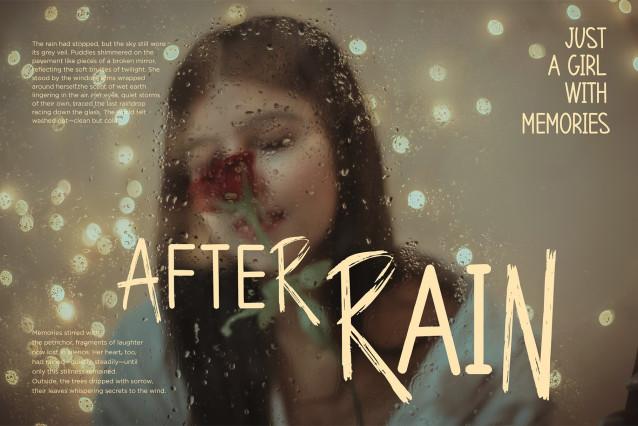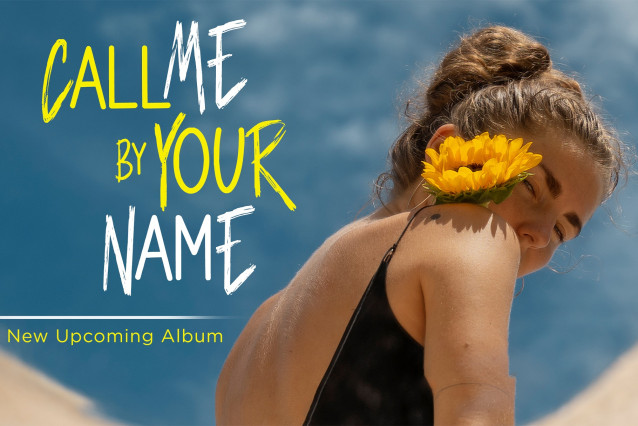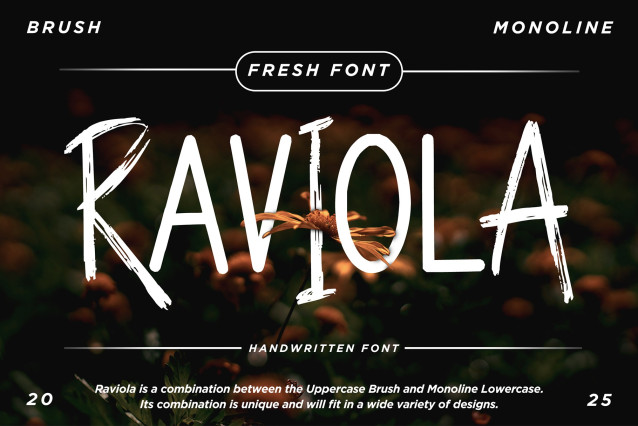
Raviola Brush Font
Raviola Brush Font is a uniquely charming handwritten font that blends bold uppercase brush strokes with delicate monoline lowercase characters. This distinct pairing gives Raviola a modern yet organic feel—perfect for designs that need both personality and elegance. Whether you’re crafting logos, packaging, or quotes, Raviola brings stylish contrast and creative flair to every project.